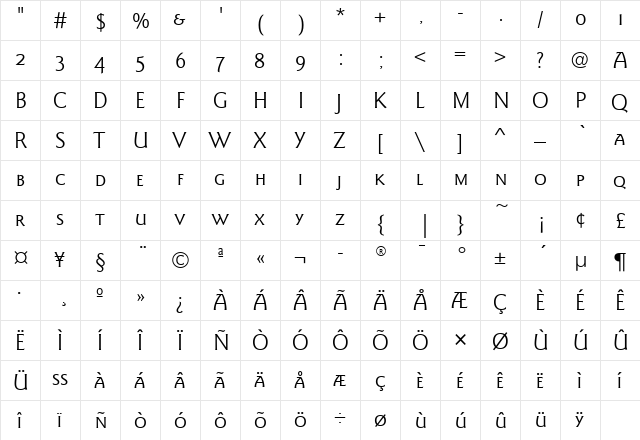
GoudySansSCITC Book
Design Context for GoudySansSCITC Typeface
GoudySansSCITC is a composed and adaptable typeface that performs quietly and consistently across a wide range of design contexts.